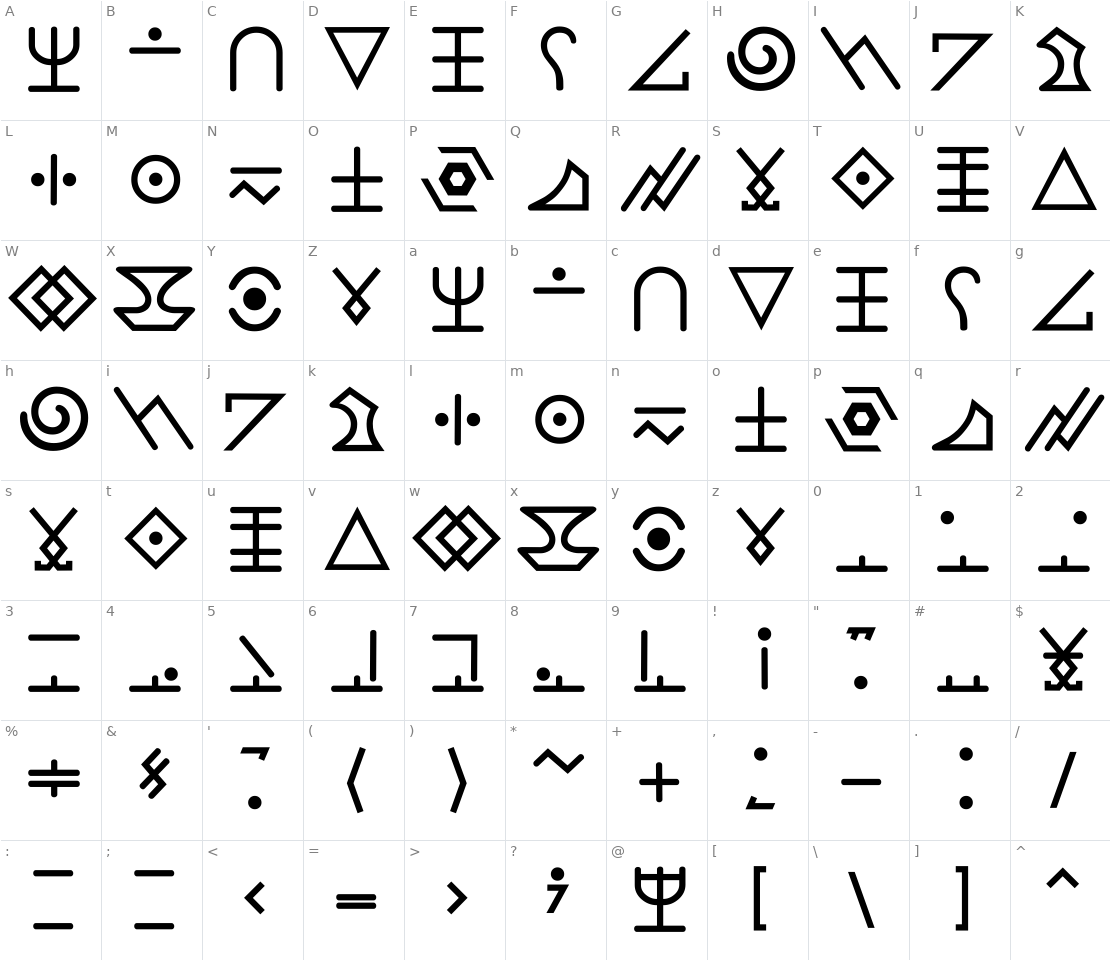
The Calling
by sirrandalot
The Calling is a symbol font by sirrandalot made up of abstract, geometric glyphs that read less like an alphabet and more like transmissions from somewhere else entirely. The shapes carry a mystical, alien quality, angular and deliberate, as if each one encodes meaning in a language you're not quite meant to understand. Useful for worldbuilding in sci-fi and fantasy projects, decorative textures, or anywhere you need visuals that feel genuinely otherworldly.